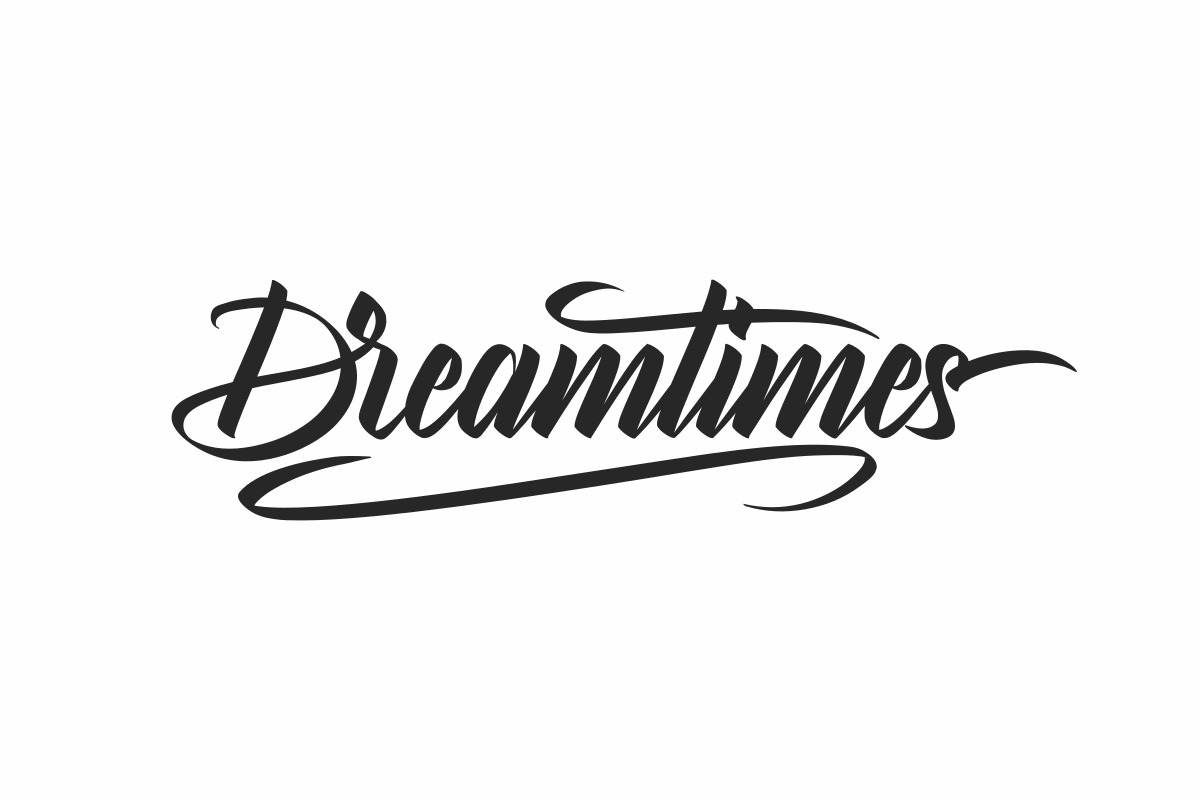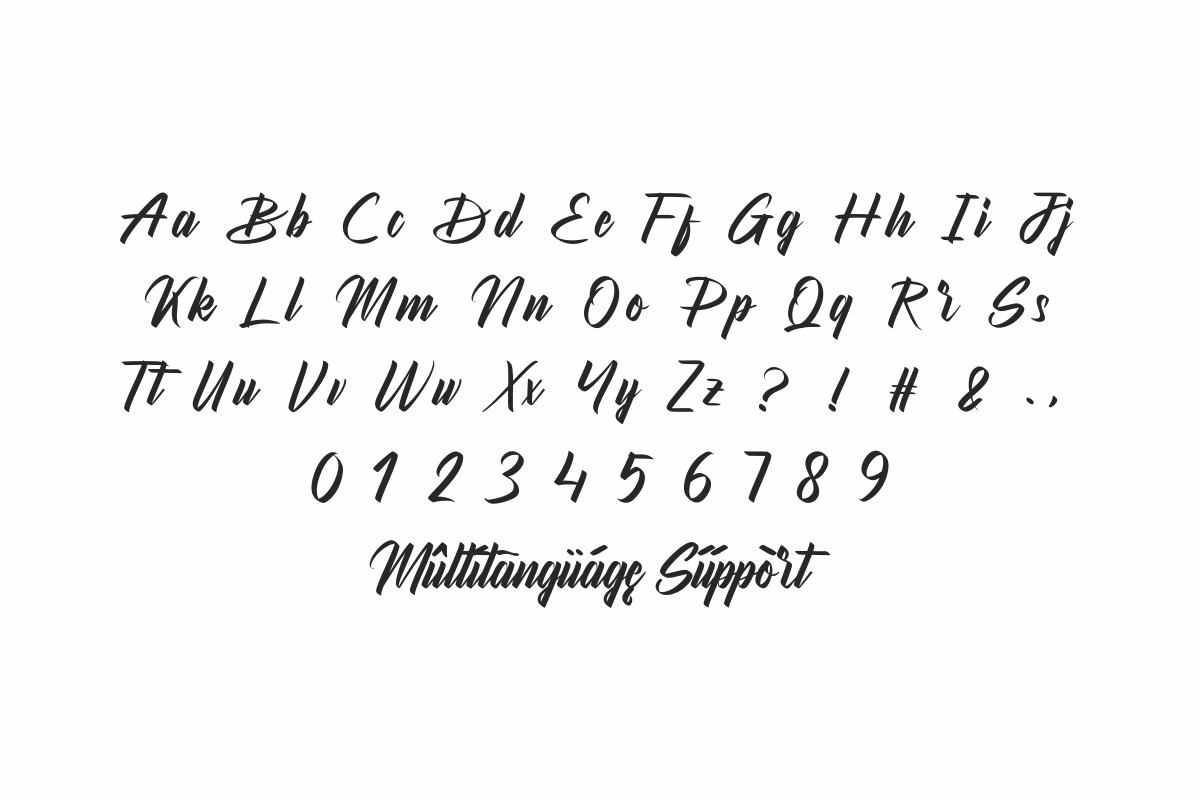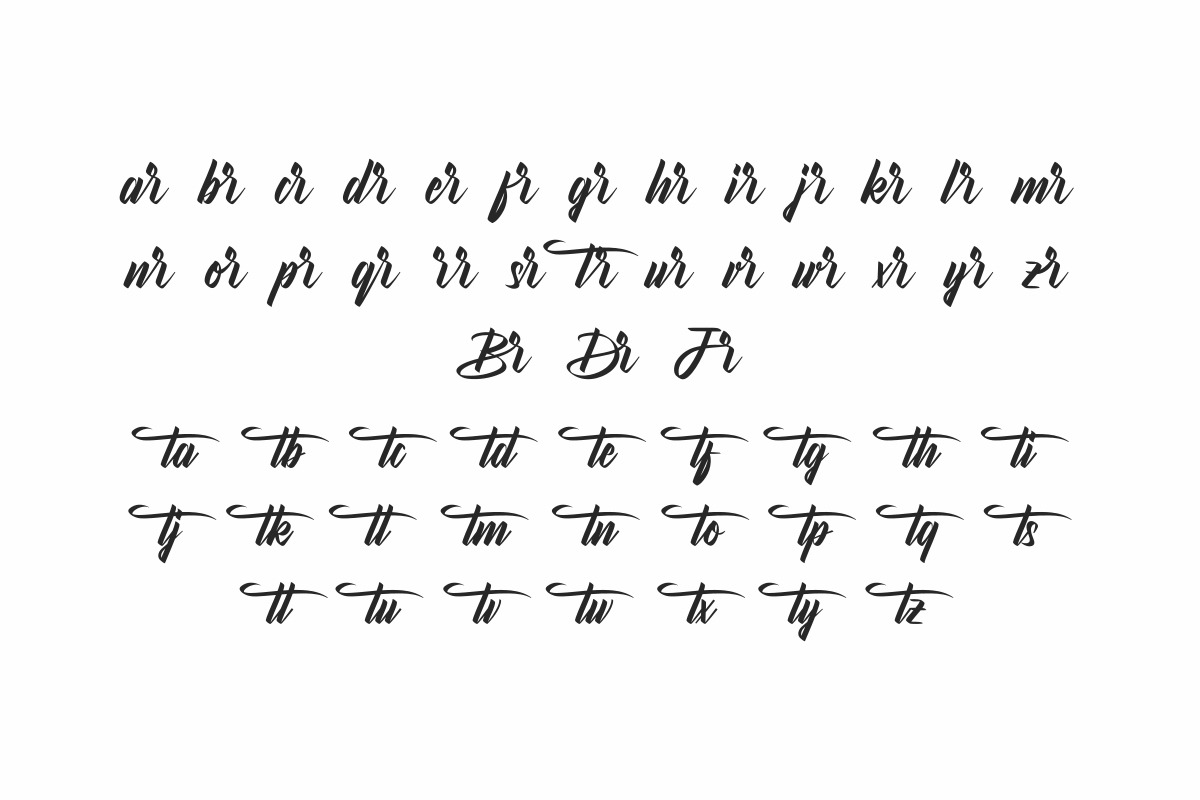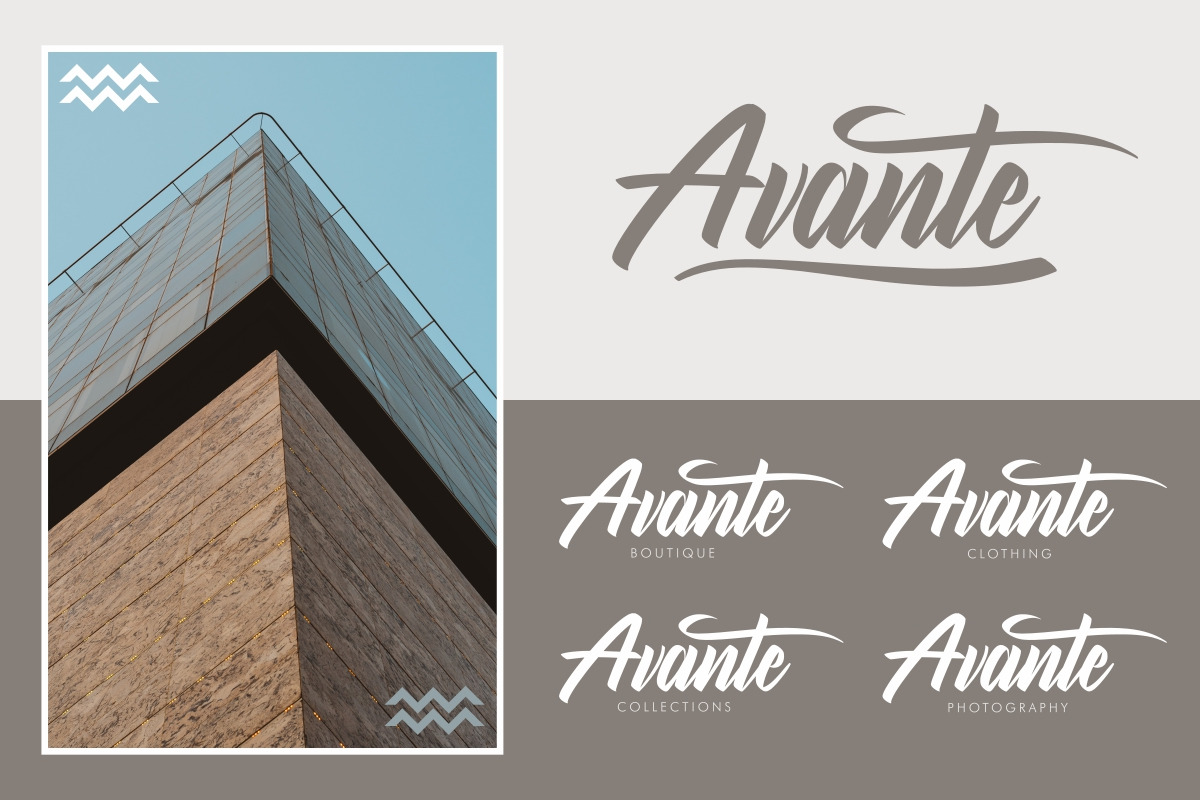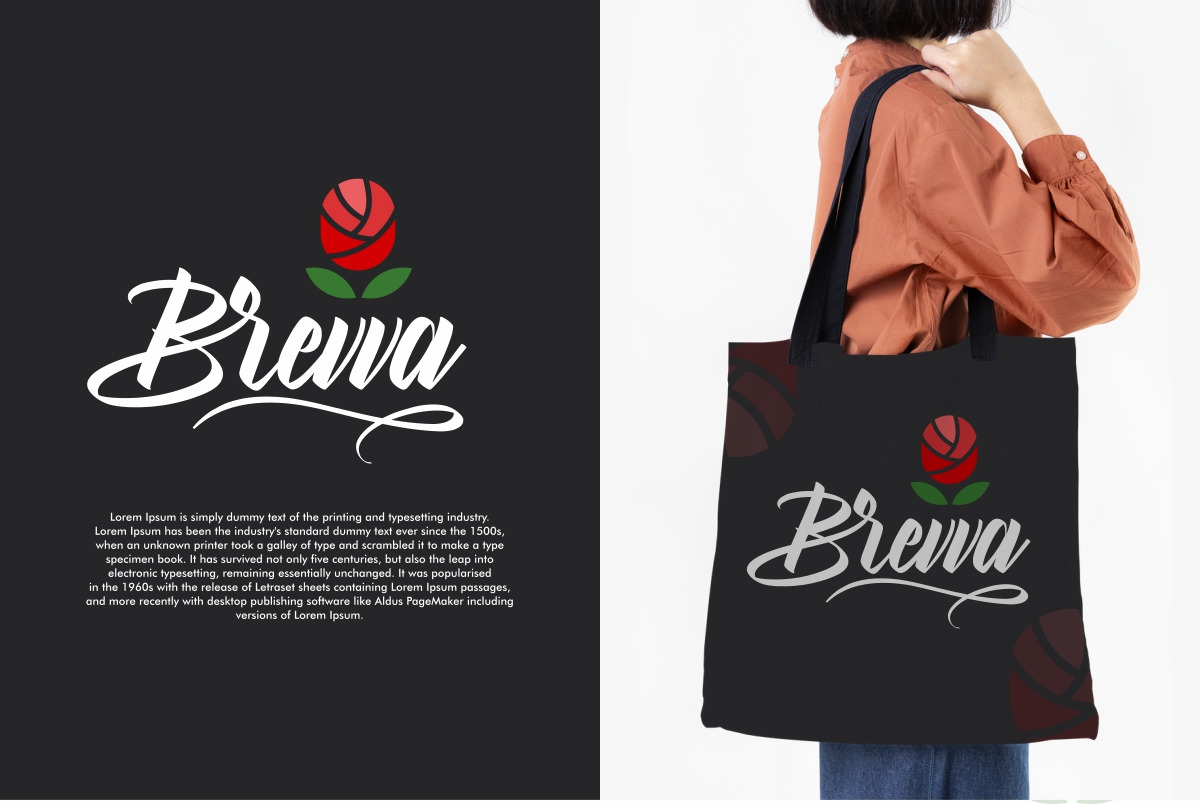
Dreamtimes Calligraphy Font
Dreamtimes is a brush hand lettering font. Originally made in 2020 by NihStudio Font Designer : Widiyanti and Suci. On the package you will get :
Handcrafted here in our Studio , Indonesia. Dreamtimes will be great for any projects (require extended license) including : branding, logo, stationery, business card, signage, flyer, brochure etc.
The theme style of the font is elegant, luxury, glamour, gold, vintage, stylish, sophisticated and classic brush style. The font will be match for this typeface: wedding, events, real estate, architect, law firm, florist, gardening, makeup artist, travel, hotel, musician etc